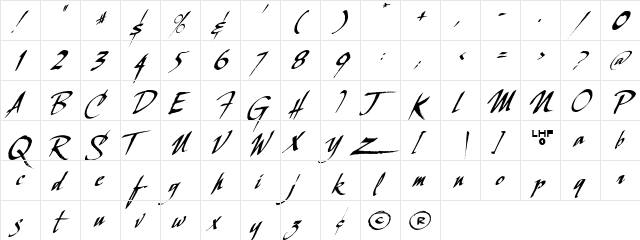
LHF Scriptana COND slant Regular
Design Context for LHF Scriptana COND slant Typeface
LHF Scriptana COND slant brings a calligraphic fluidity to the page — its connecting strokes and expressive curves give it an unmistakably human quality.
Font Pairing: Combine LHF Scriptana COND slant with a simple geometric sans for maximum contrast — the tension between flowing curves and clean structure is a classic typographic pairing.
Pro Tip: Use LHF Scriptana COND slant for short runs of text — names, titles, or taglines. Extended body copy in script faces tires the eye quickly.